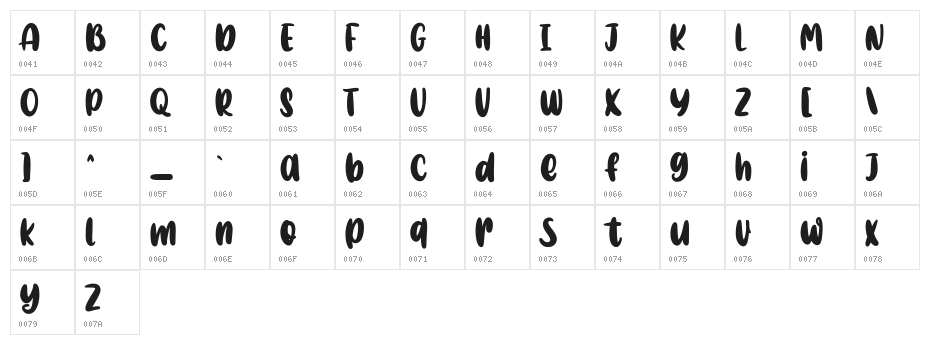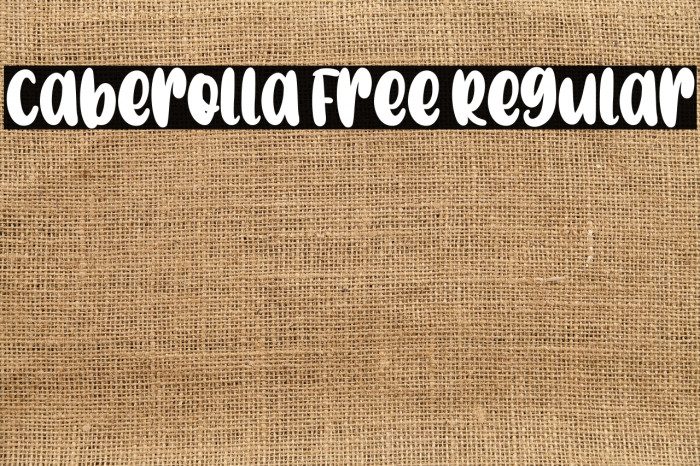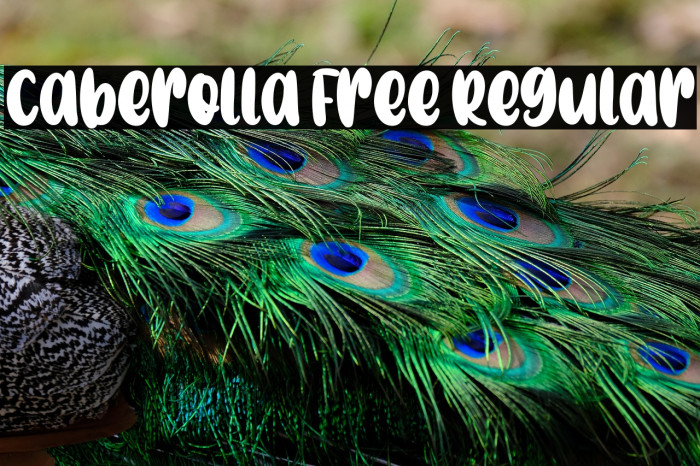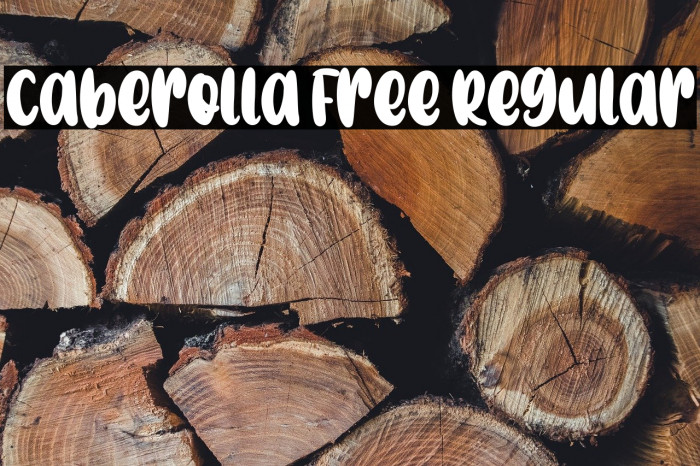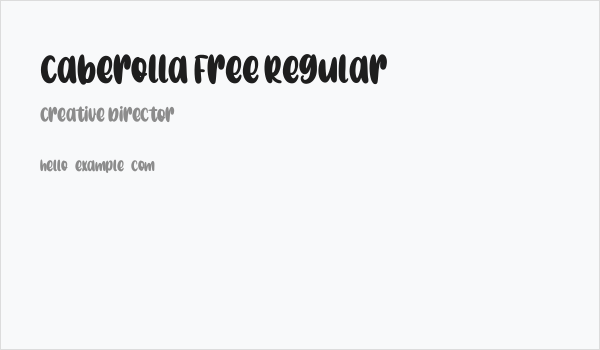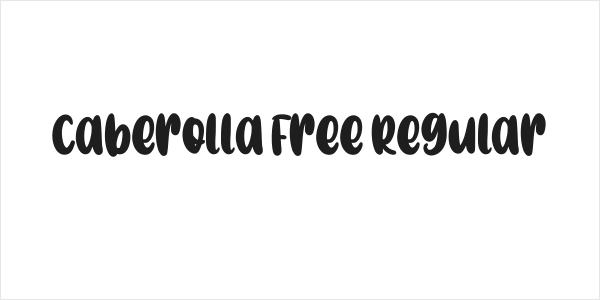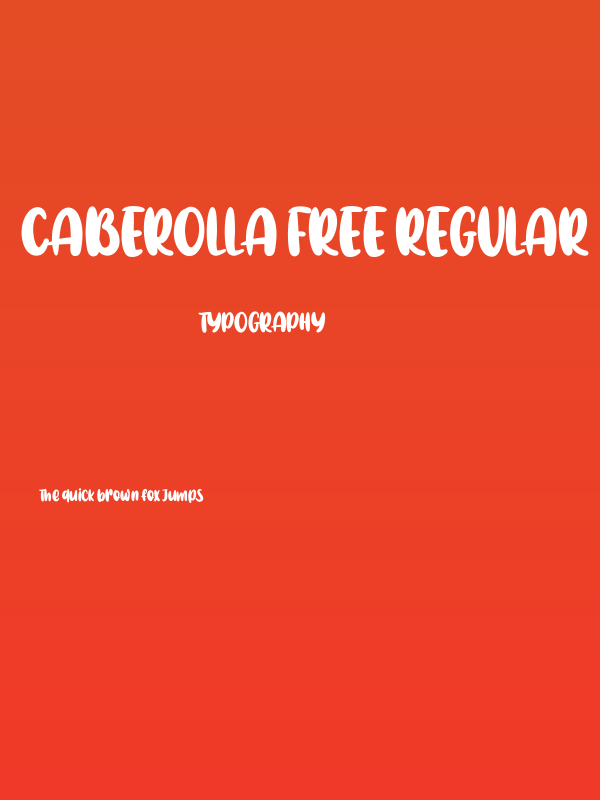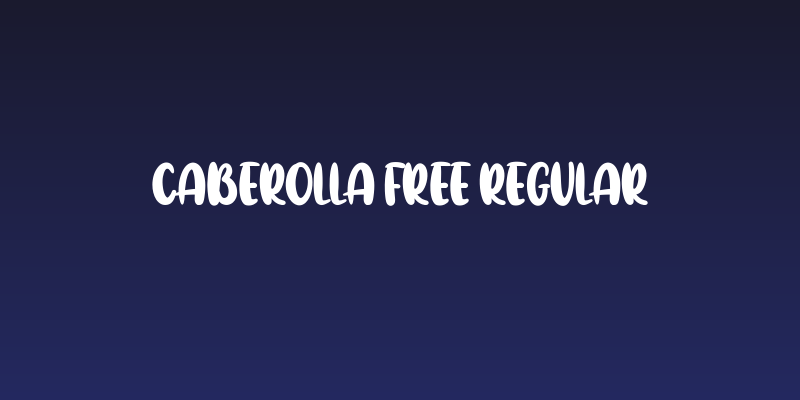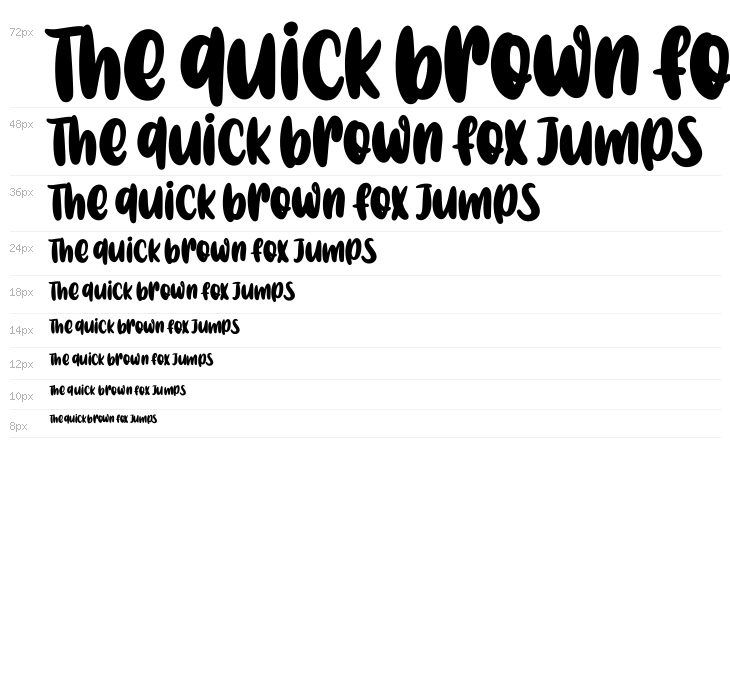
Caberolla Free Regular Font
| 整体风格 | Playful, Casual |
| 使用场景 | Logos, Headlines, Posters |
| 推荐项目 | Ideal for greeting cards, playful branding, social media graphics, and children's book covers. |